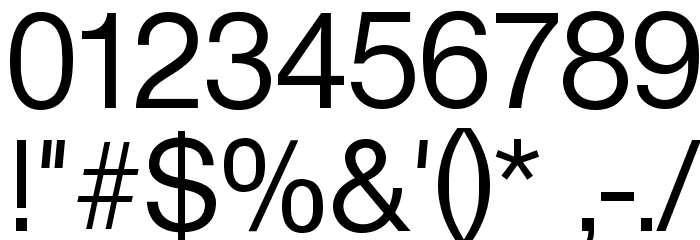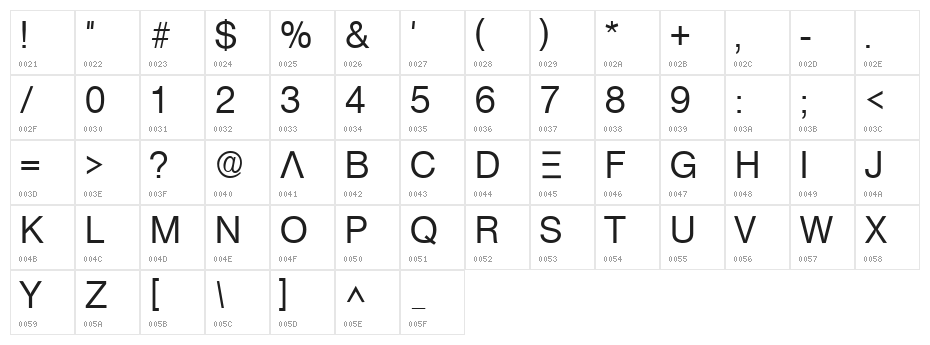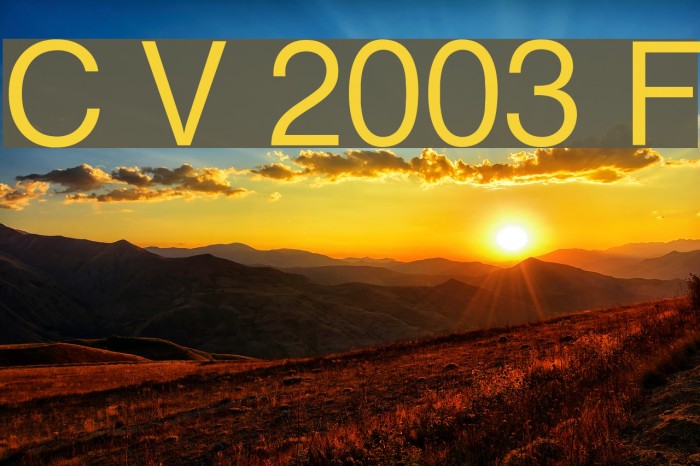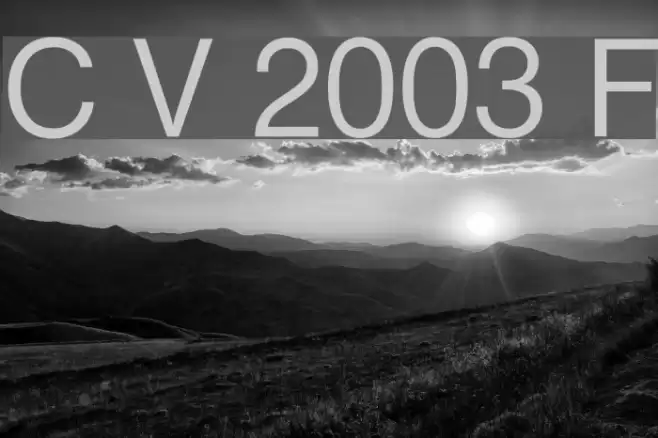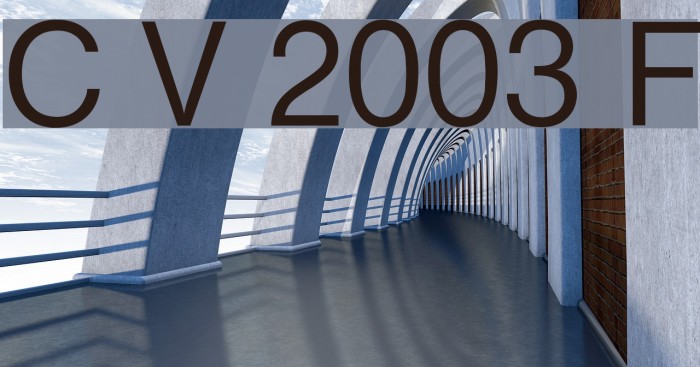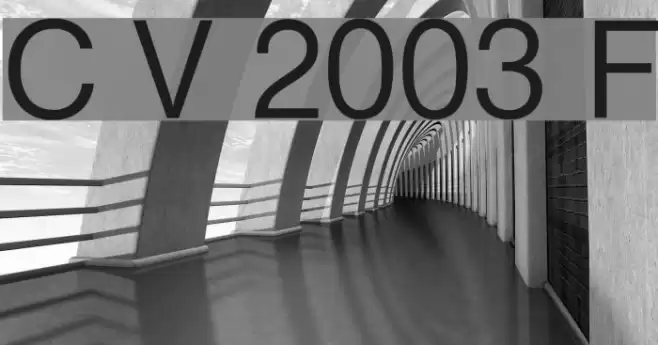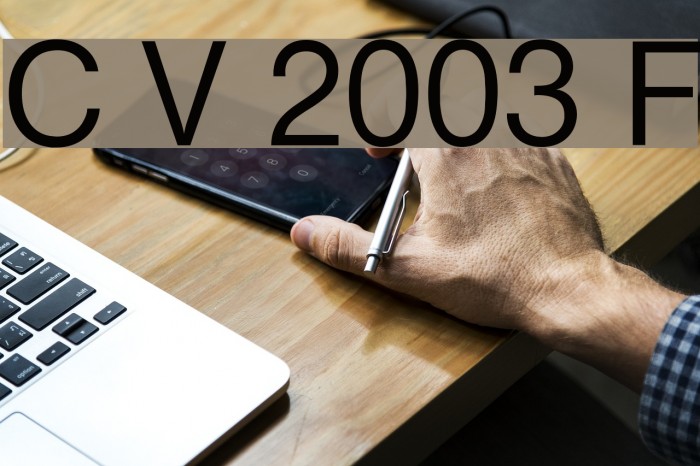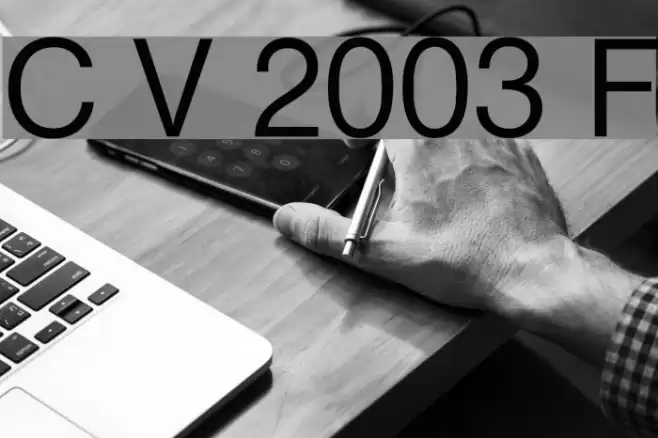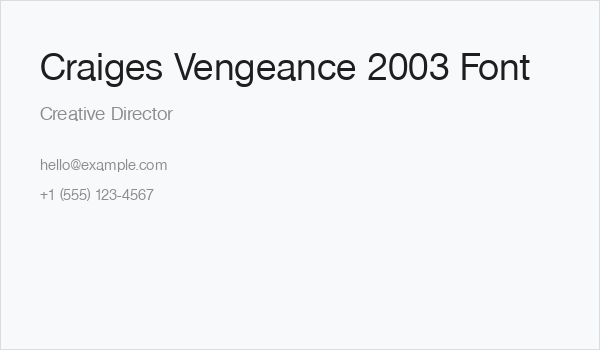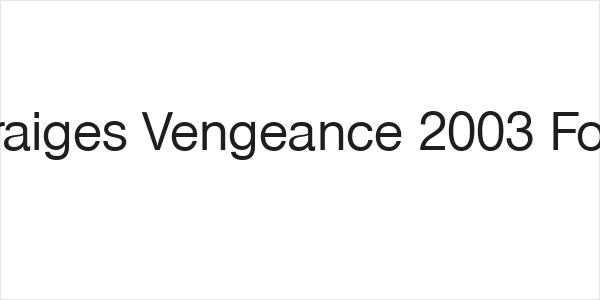
Craiges Vengeance 2003 Font Font
Craiges Vengeance 2003 Font Description
This font features a modern and sleek design with clean lines and a geometric structure. The uppercase letters are bold and assertive, with unique characteristics such as the distinctive horizontal lines in the 'E' and 'F'. The lowercase letters maintain a consistent style, offering a harmonious blend with the uppercase. Numbers are clear and easy to read, making them suitable for various applications. Special characters are well-defined, adding versatility to the font. Overall, this font exudes a contemporary and professional feel, making it ideal for modern design projects.